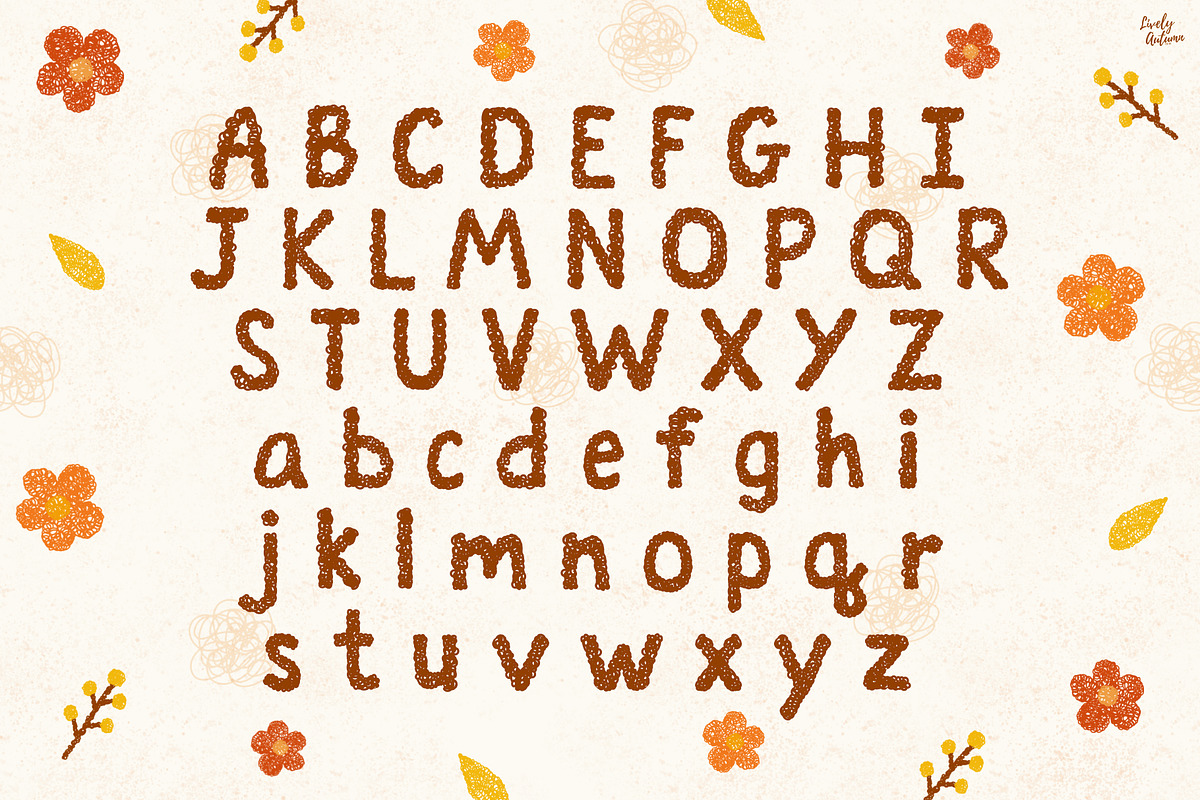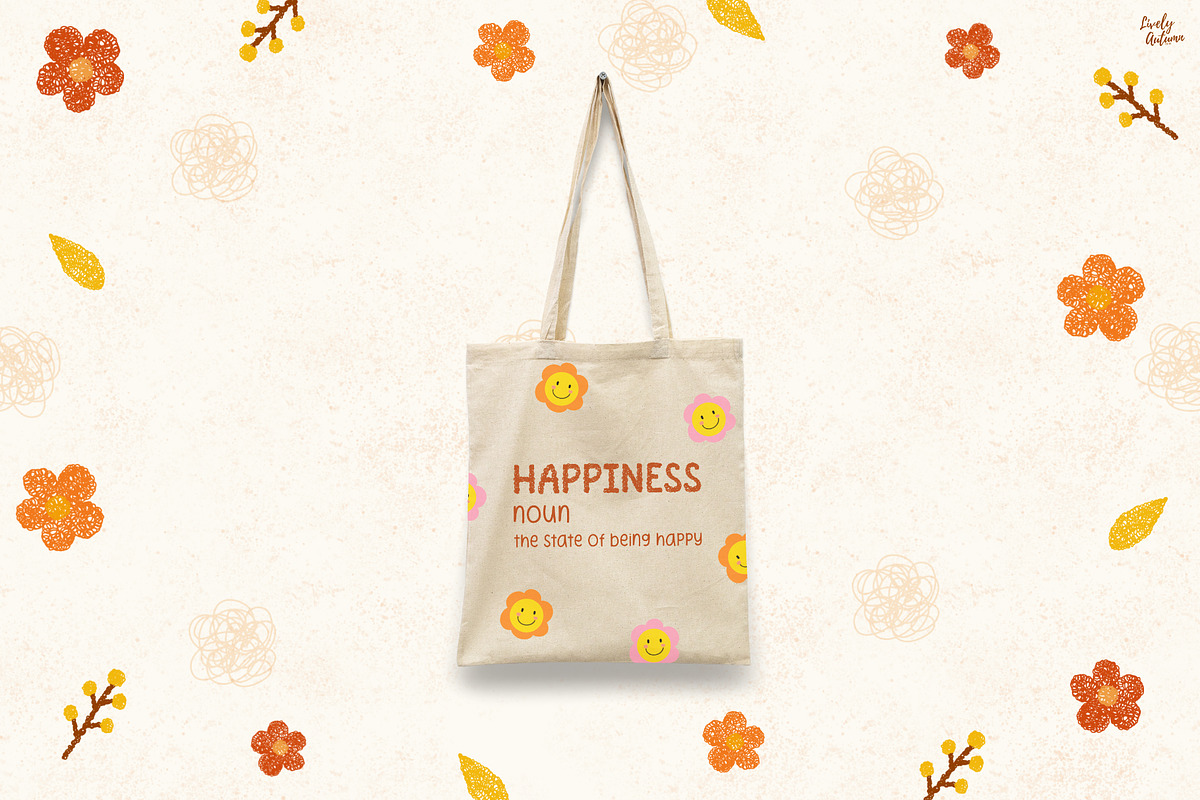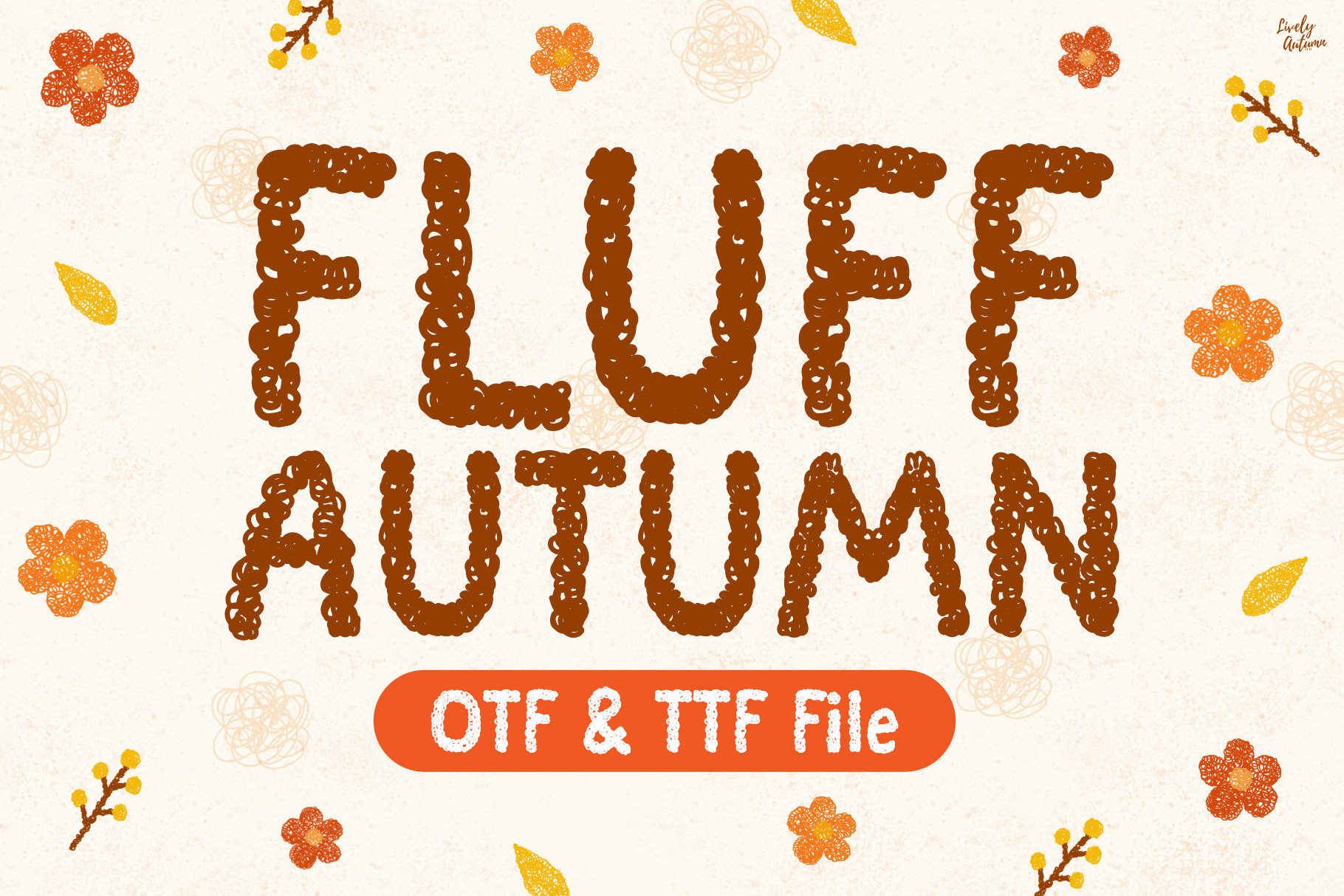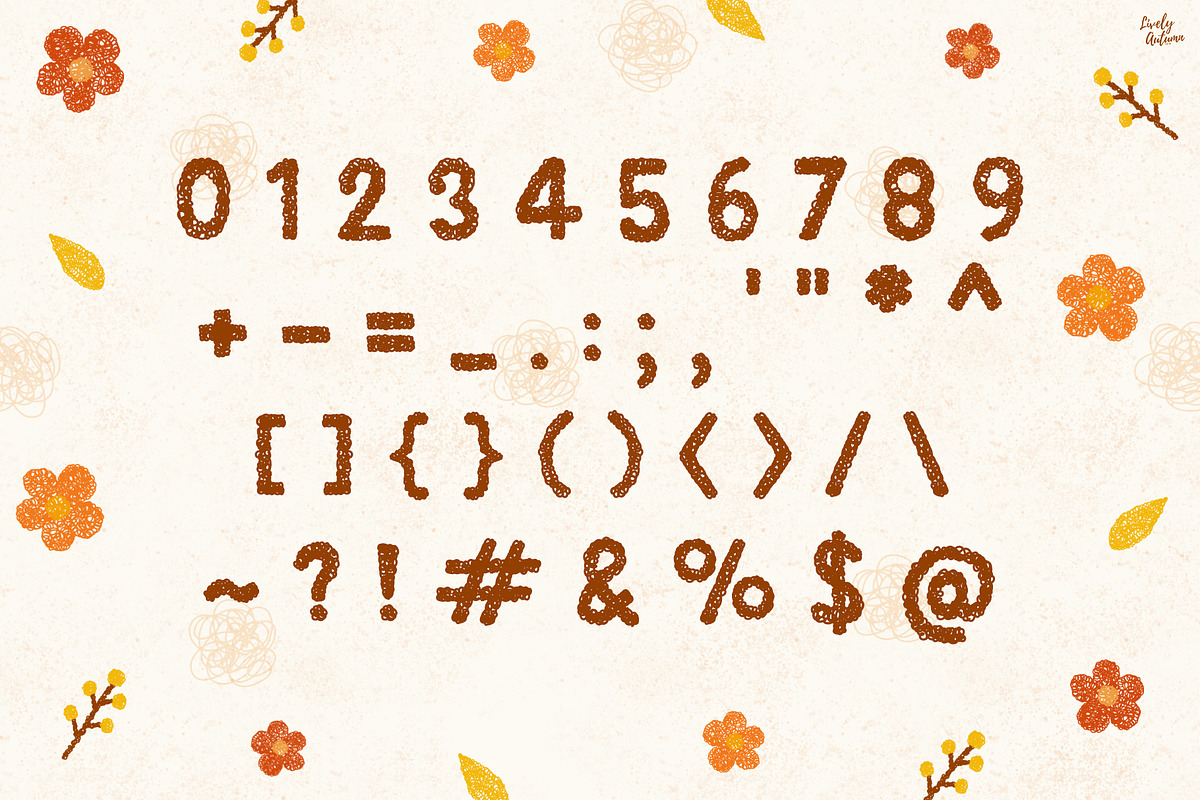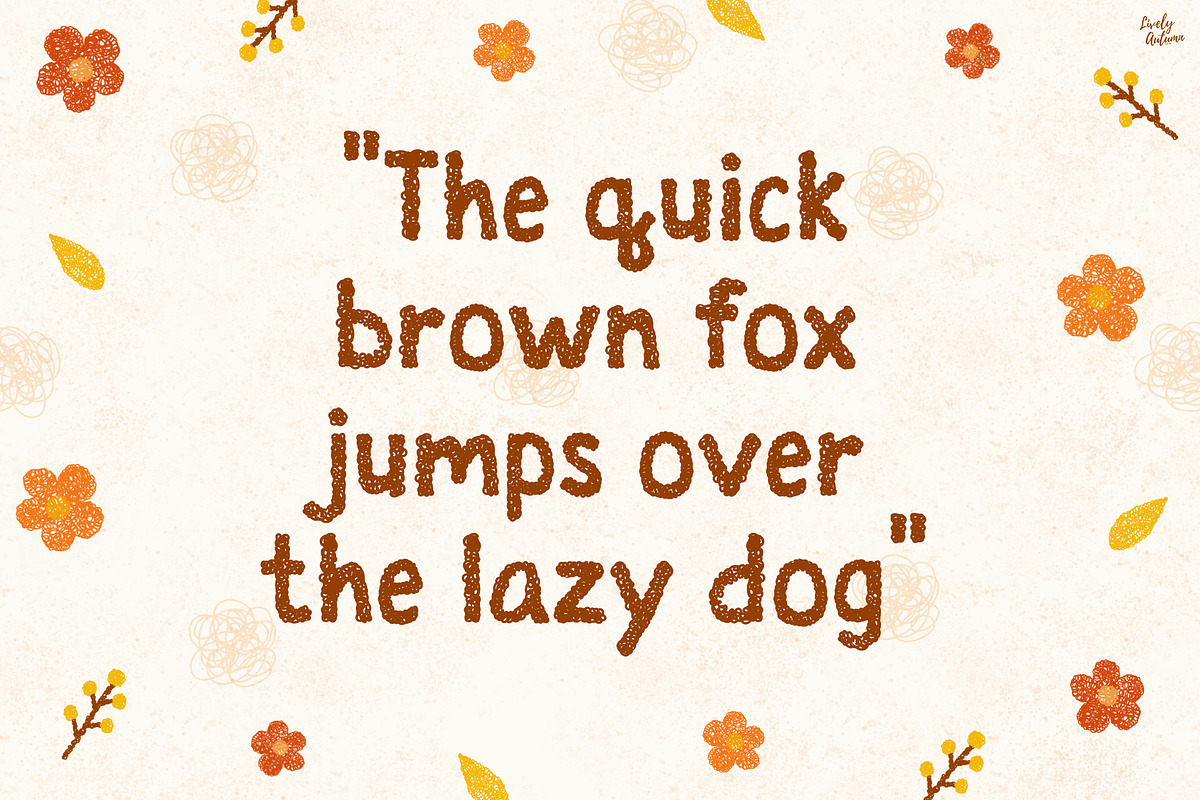
Fluff Autumn | Handwriting font
Fluff Autumn is a bold, handwritten font with fun doodle lines on each letter. Perfect for your personal projects and various projects. From invitations to posters, social media graphics, journals, stickers and much more.
- Font includes: uppercase, lowercase, numbers, and punctuation